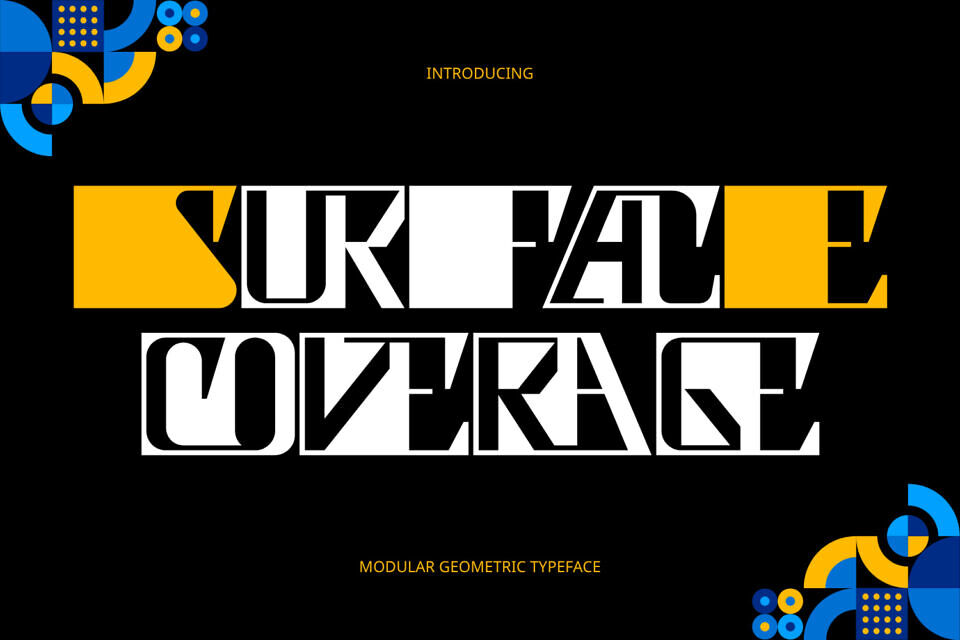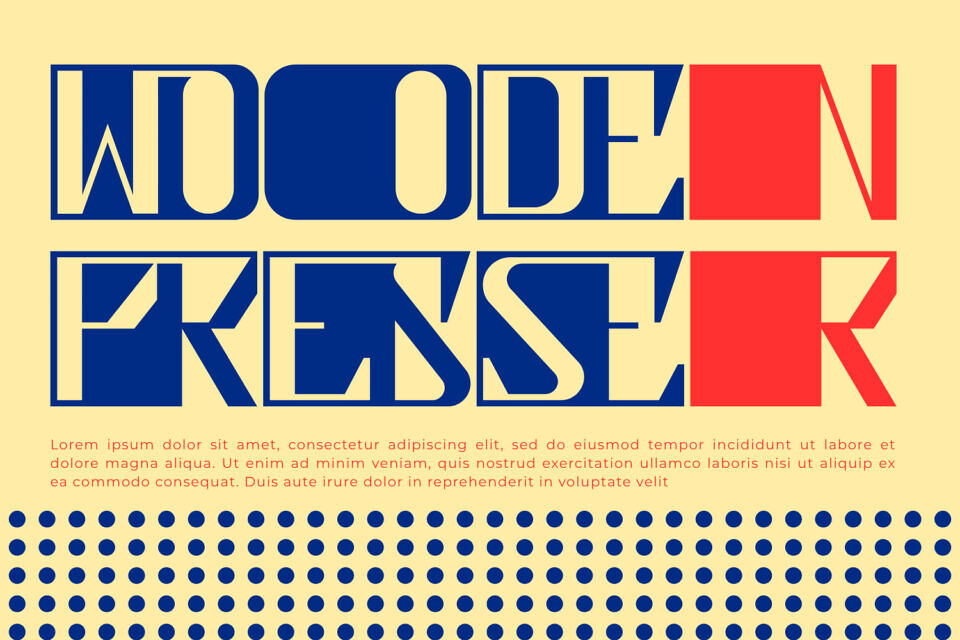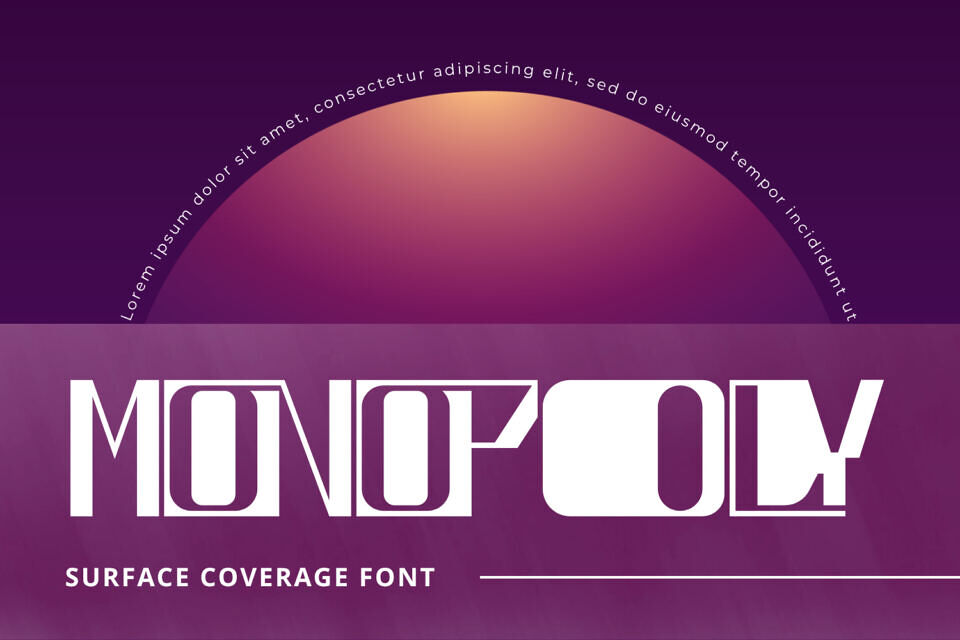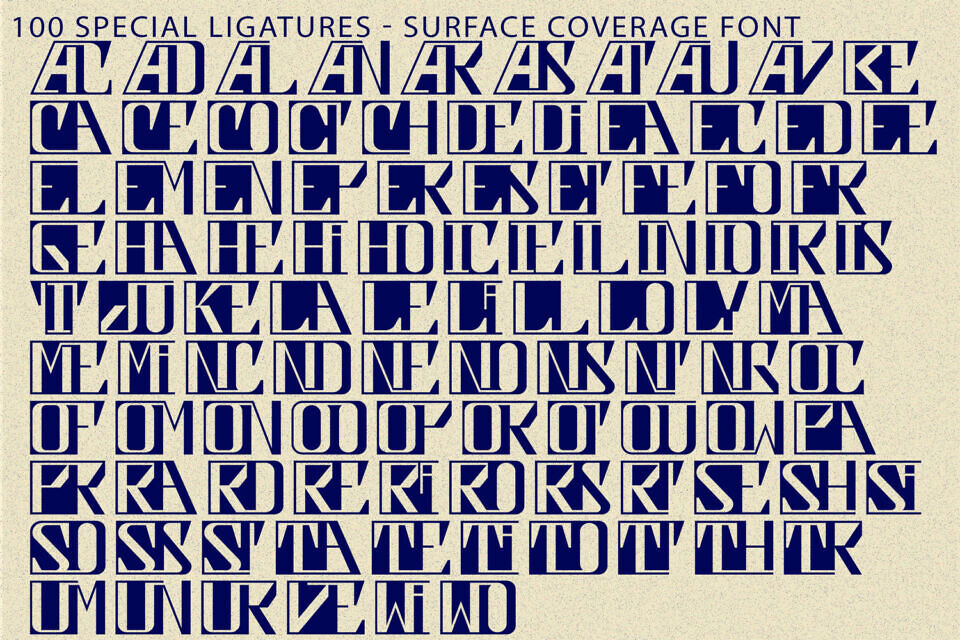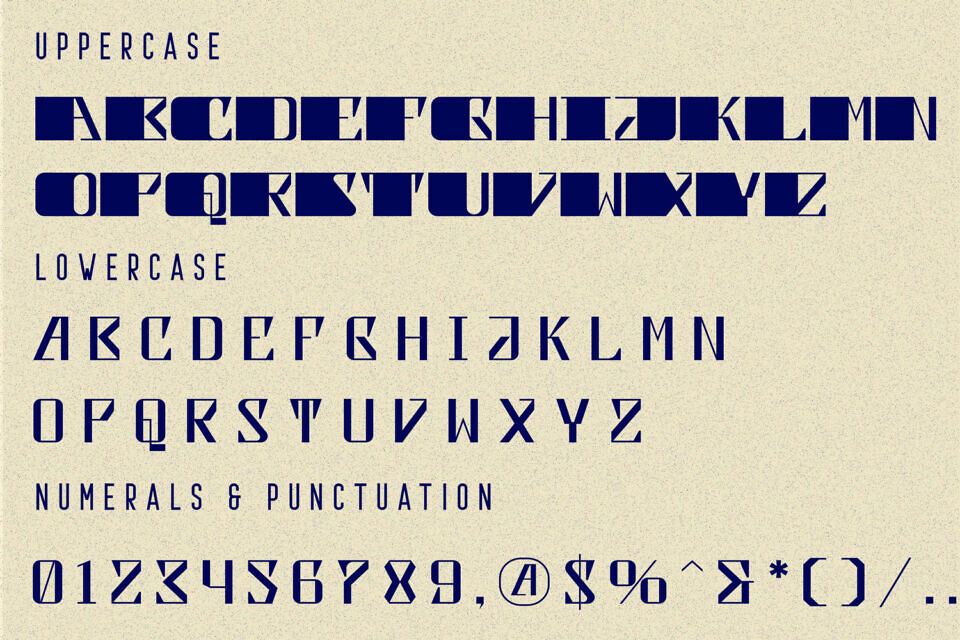
Surface Coverage is a striking Art Deco-inspired display font that blends vintage sophistication with bold geometric design. Featuring architectural letterforms, sharp angular cuts, and carefully crafted negative spaces, this typeface creates a distinctive visual identity that instantly commands attention.
Inspired by the glamour and elegance of the Art Deco era, Surface Coverage combines strong structural forms with decorative details to deliver a timeless yet contemporary aesthetic. Its stylized characters and geometric precision make every headline feel refined, dramatic, and memorable.